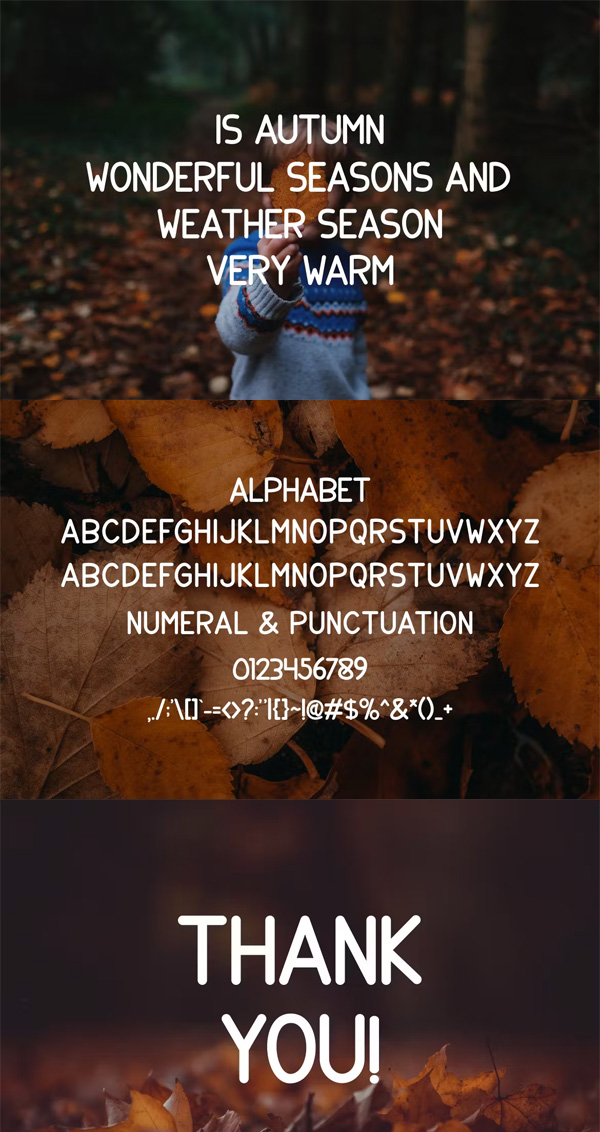
Barox Sans Serif Font
Here in this post, you can Free Download Barox Sans Serif Font DFSVGHV compress files through the below link. Introducing Barox Modern Sans Serif. Barox is a modern and simple font, best used as a display for headings, logos, branding, magazines, product packaging and invitations. Barox come with clean lines and smooth curves give any project an extra touch of class. You Can Also Download The Big Cute Fonts Bundle.
Barox Sans Serif Font